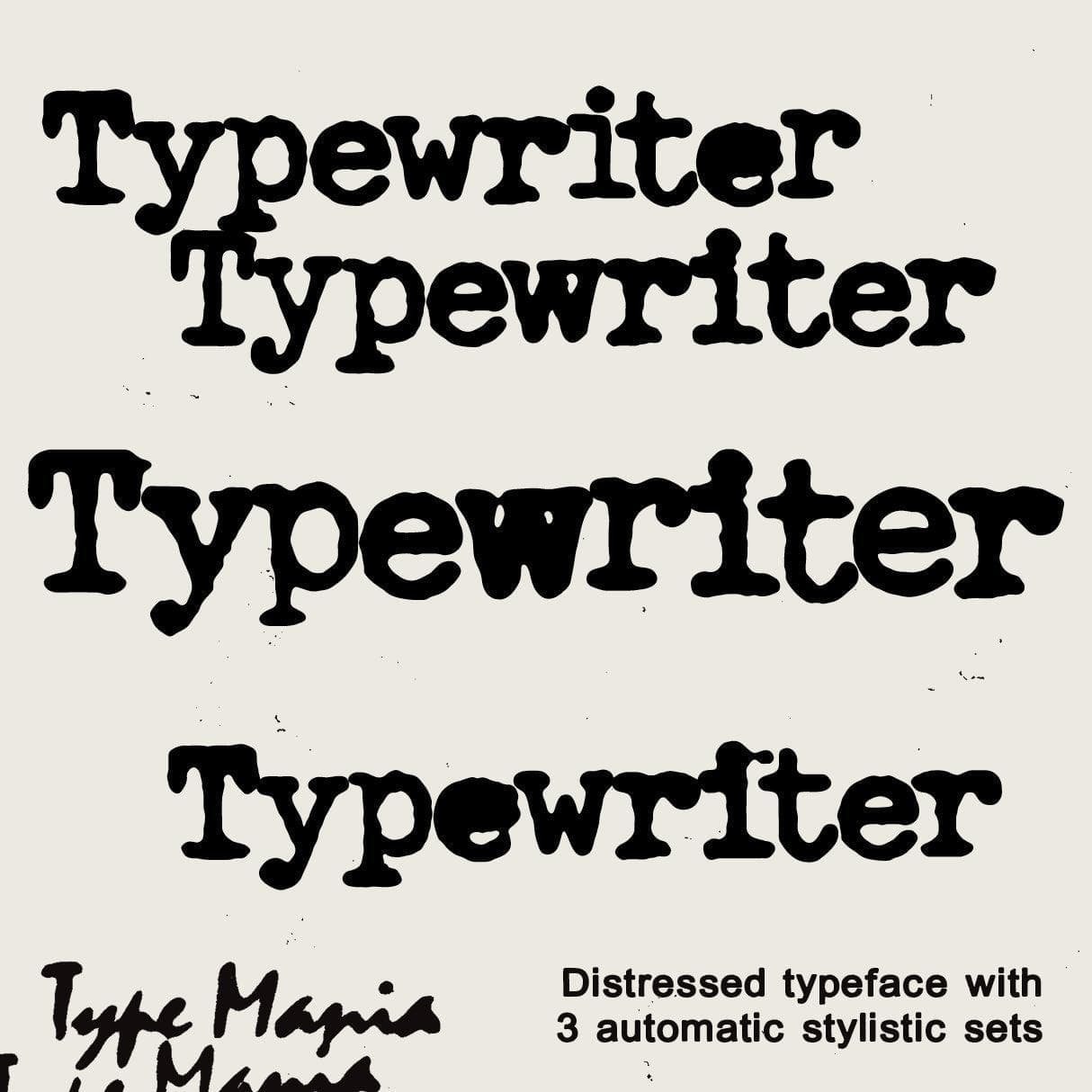
<p><strong>Typewriter TM</strong> breathes new life into the classic distressed typewriter aesthetic with 3 stylistic sets rotating automatically. Ch-Check it out... </p> <p><strong>Zip includes</strong></p> <ul> <li>OTF file</li> <li>TTF file</li> <li>WOFF2 file</li> </ul> <p><strong>OpenType features</strong></p> <ul> <li>3 stylistic sets</li> <li>The font is programmed to automatically shift between the stylistic sets</li> </ul> <p><strong>Languages</strong></p> <ul> <li>Basic Latin</li> <li>Western European</li> <li>Euro</li> <li>Central European</li> <li>Pan African Latin</li> </ul> <p><em>Graphic Design is Easy (with Type Mania)®</em></p>